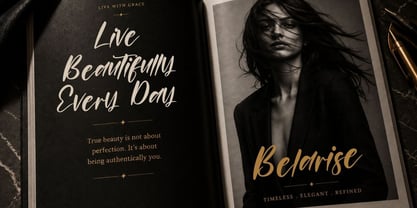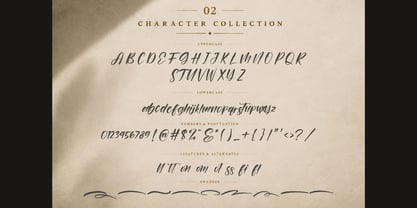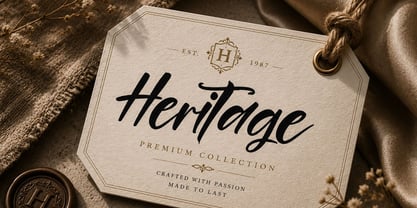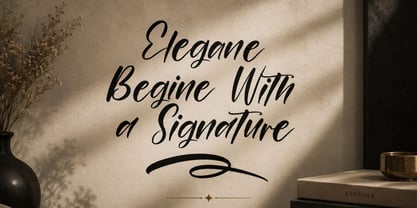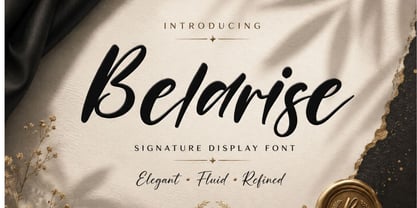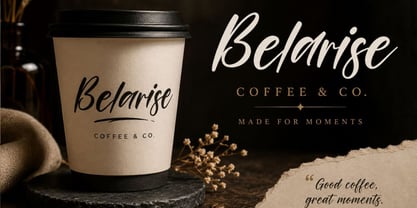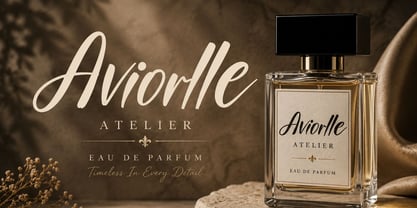
Belarise
by RHD Creative
The Belarise Font Family and published by RHD Creative. Belarise contains 1 styles. More about this family
Hello everyone, I would like to introduce Belarise - Handwritten Script Font.
Belarise - Handwritten Script Font with Handmade character. Belarise - Handwritten Script Font, Modern font to make your design project stand out! Belarise a perfectly choice for any creative endeavor, creating, modern, chic, lifestyle design such as logotype, title, cover, branding, invitations, wedding designs, display and magazine, social media posts, advertisements, printed quotes, product packaging, corporate brand, product designs, labels, photography, watermarks, special events and any other project with modern touch.